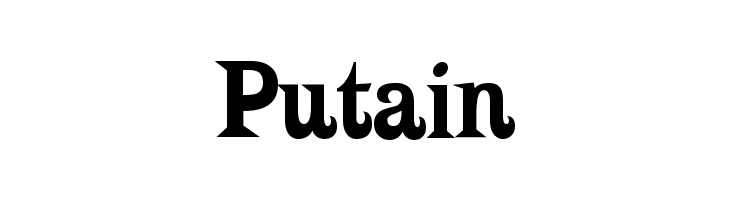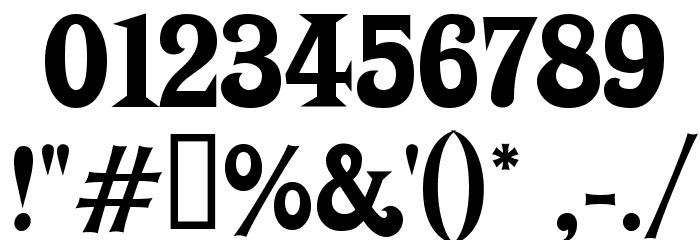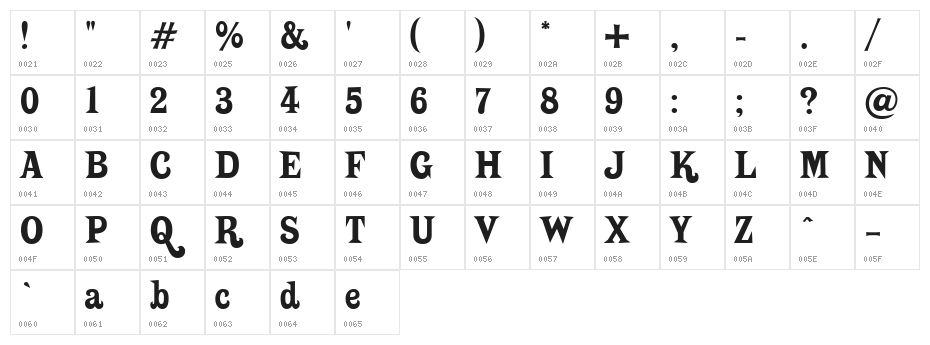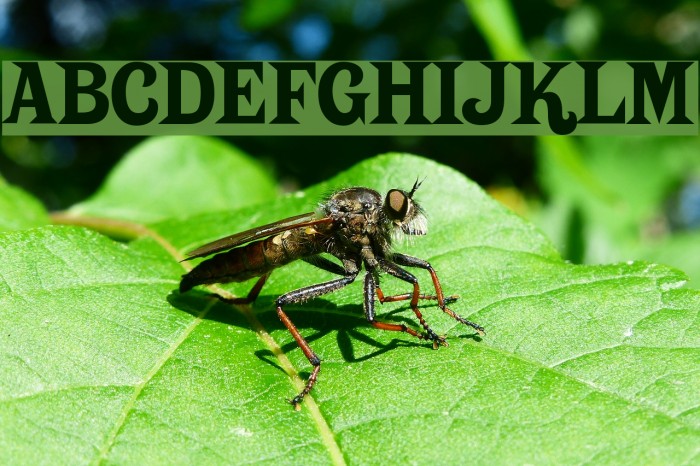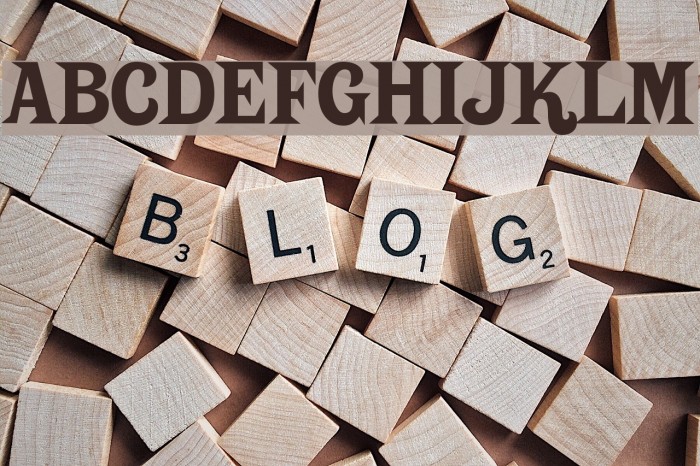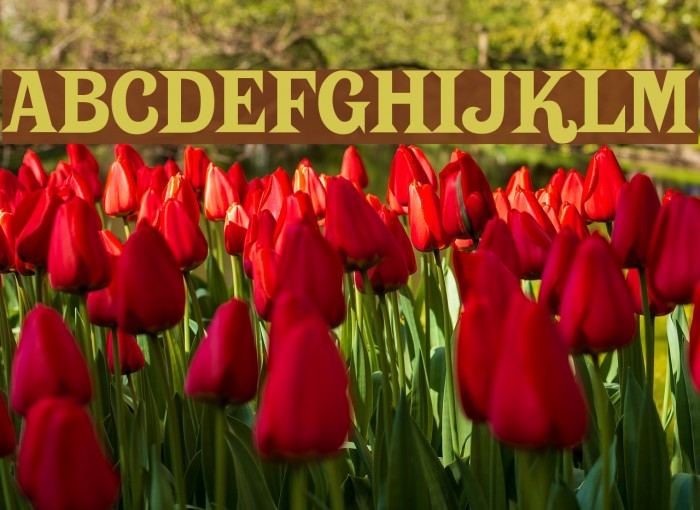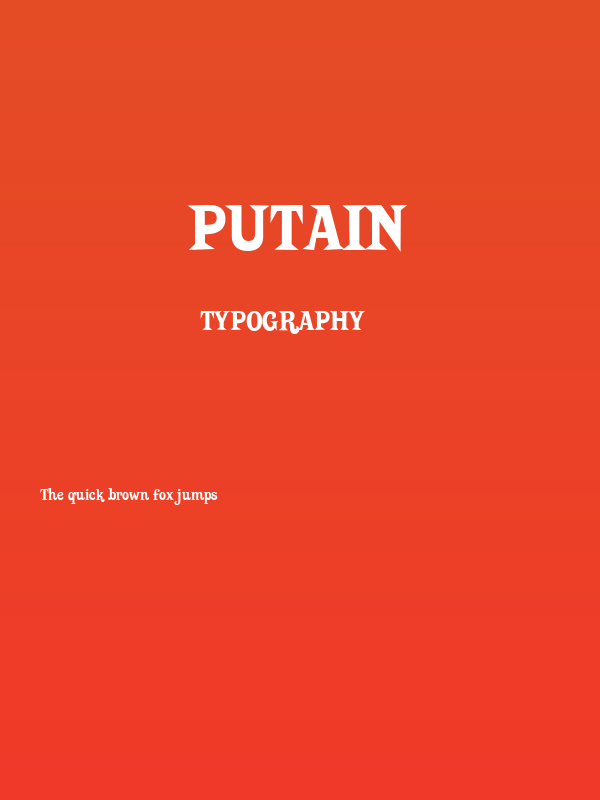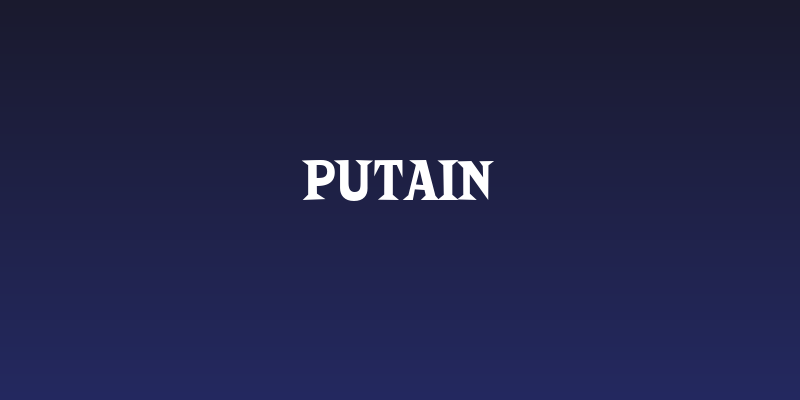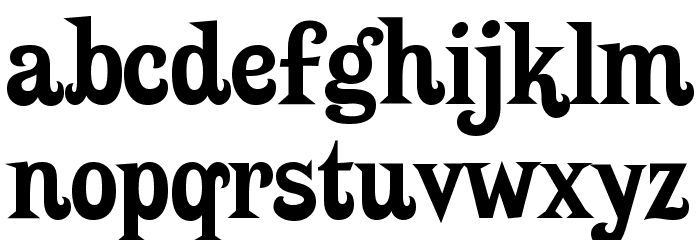
Putain Font
Putain Description
This font features a bold and dramatic style with strong serifs and a high contrast between thick and thin strokes. The uppercase letters are robust and commanding, while the lowercase letters maintain a consistent flow with distinctive curves. Numbers are equally bold, ensuring readability and impact. The special characters are designed to complement the overall aesthetic, making them suitable for attention-grabbing designs. The font's style is reminiscent of classic serif fonts but with a modern twist, making it versatile for various applications.
| Proposed Projects | Ideal for headlines, posters, branding, and editorial design where a strong visual impact is desired. |